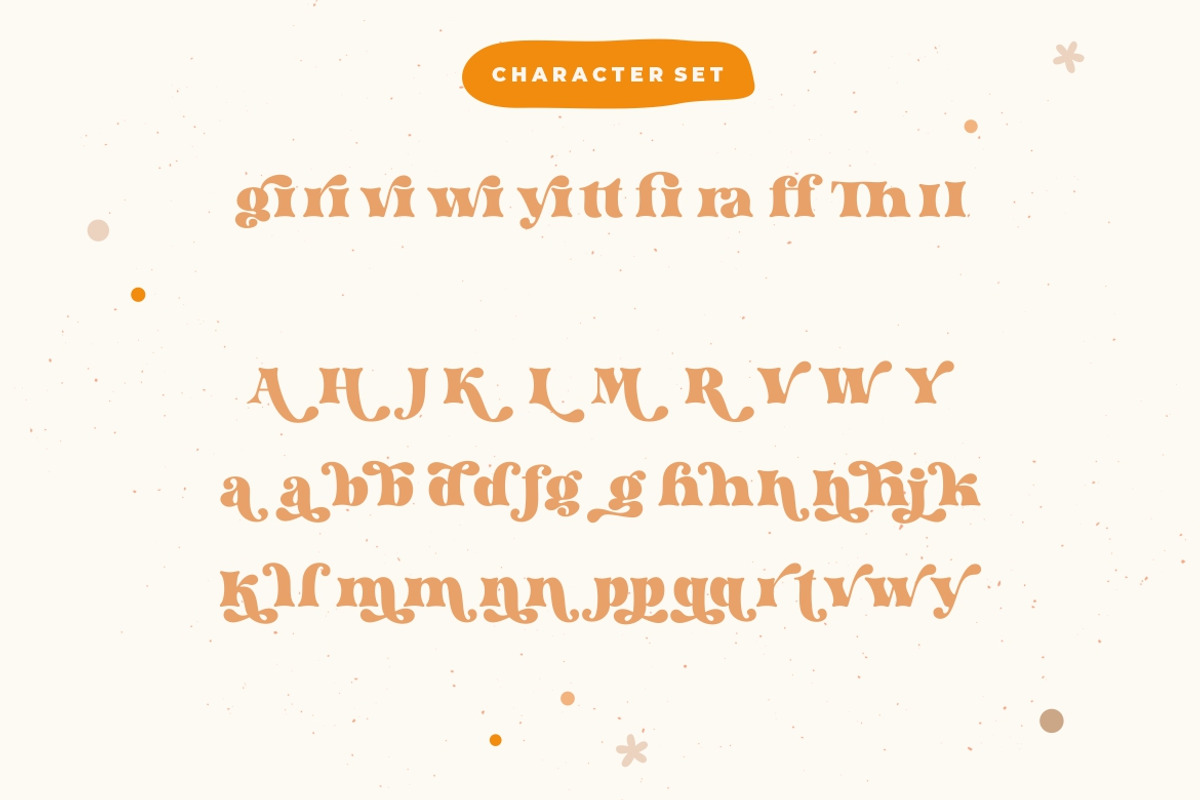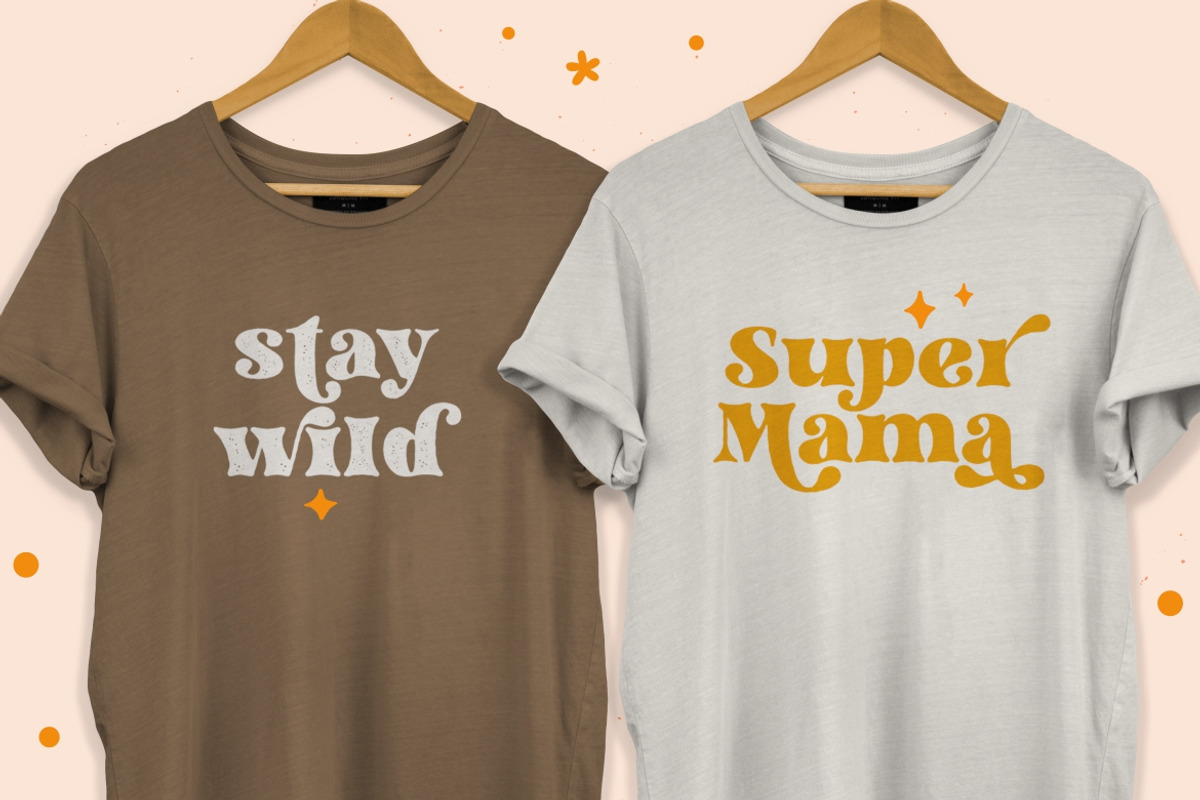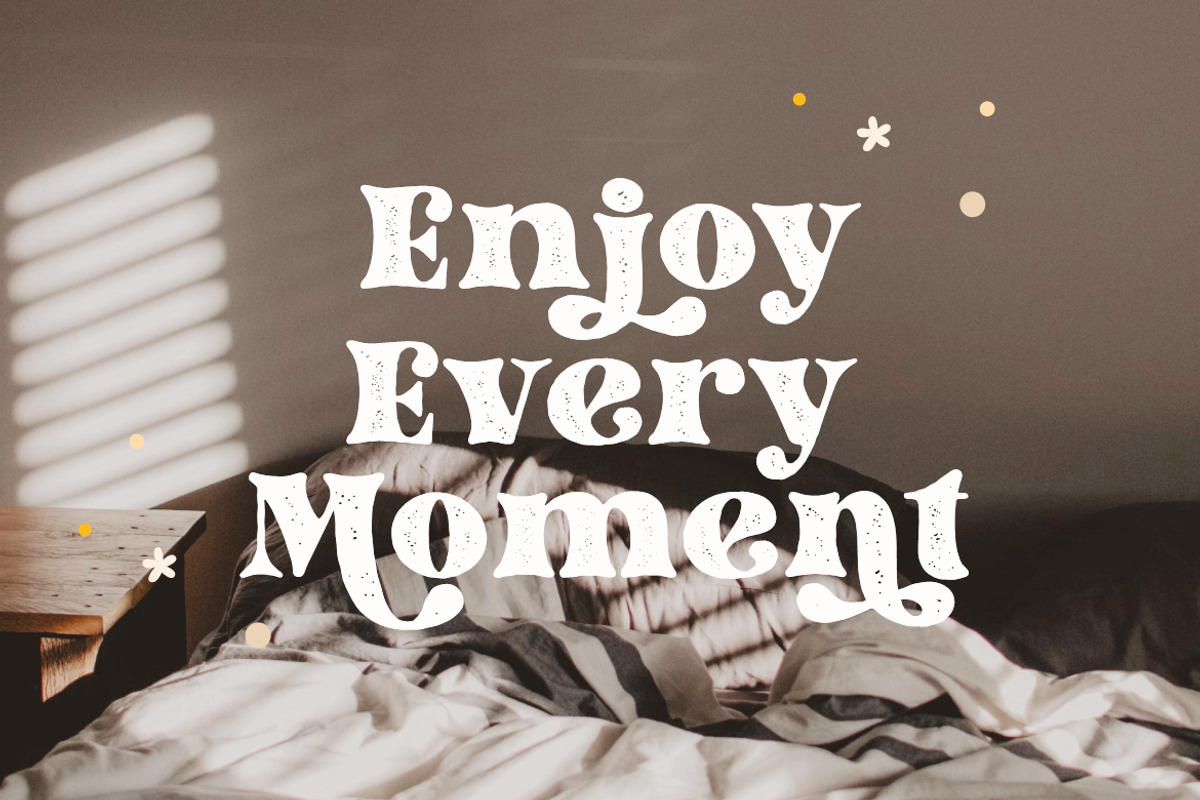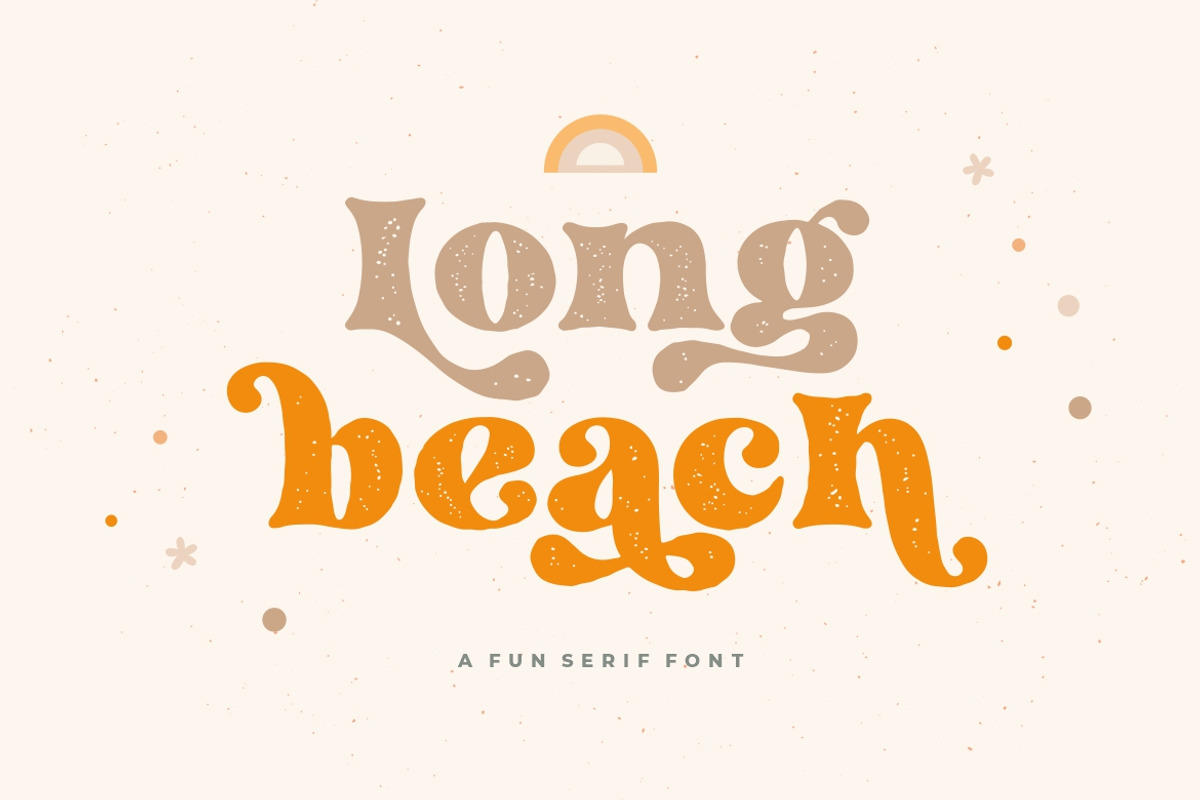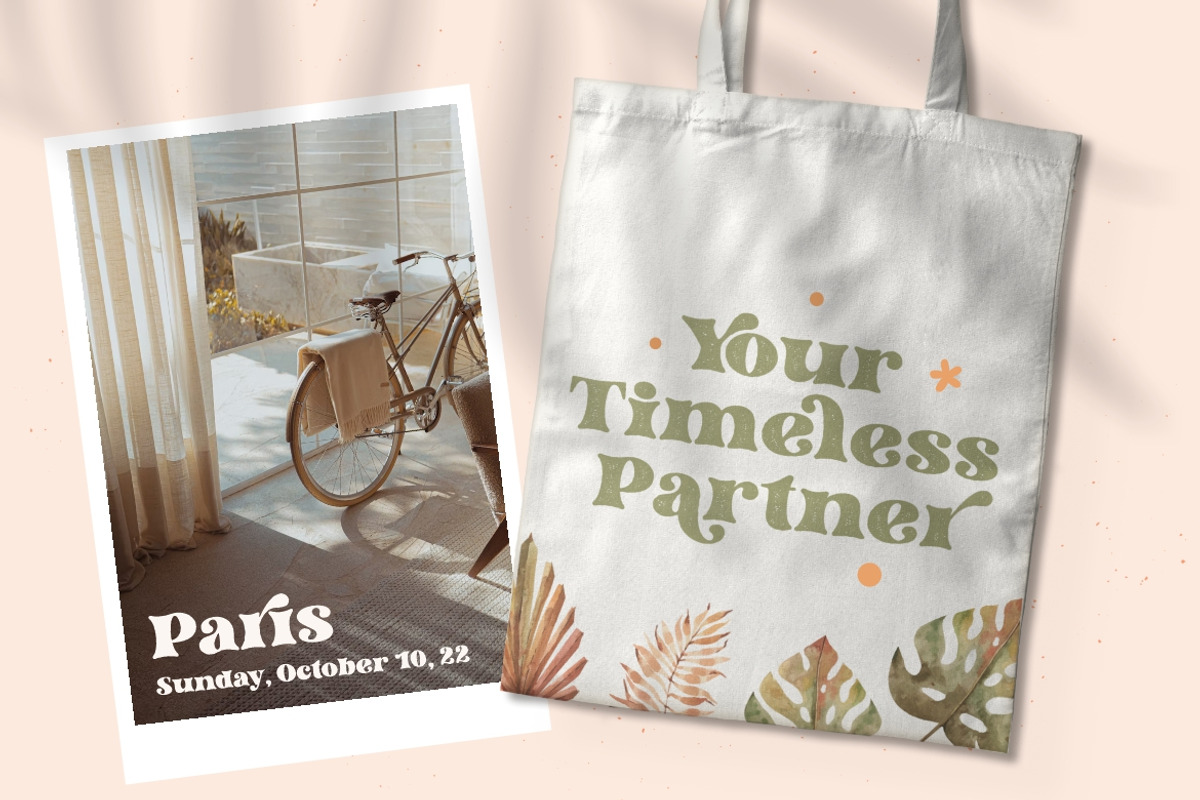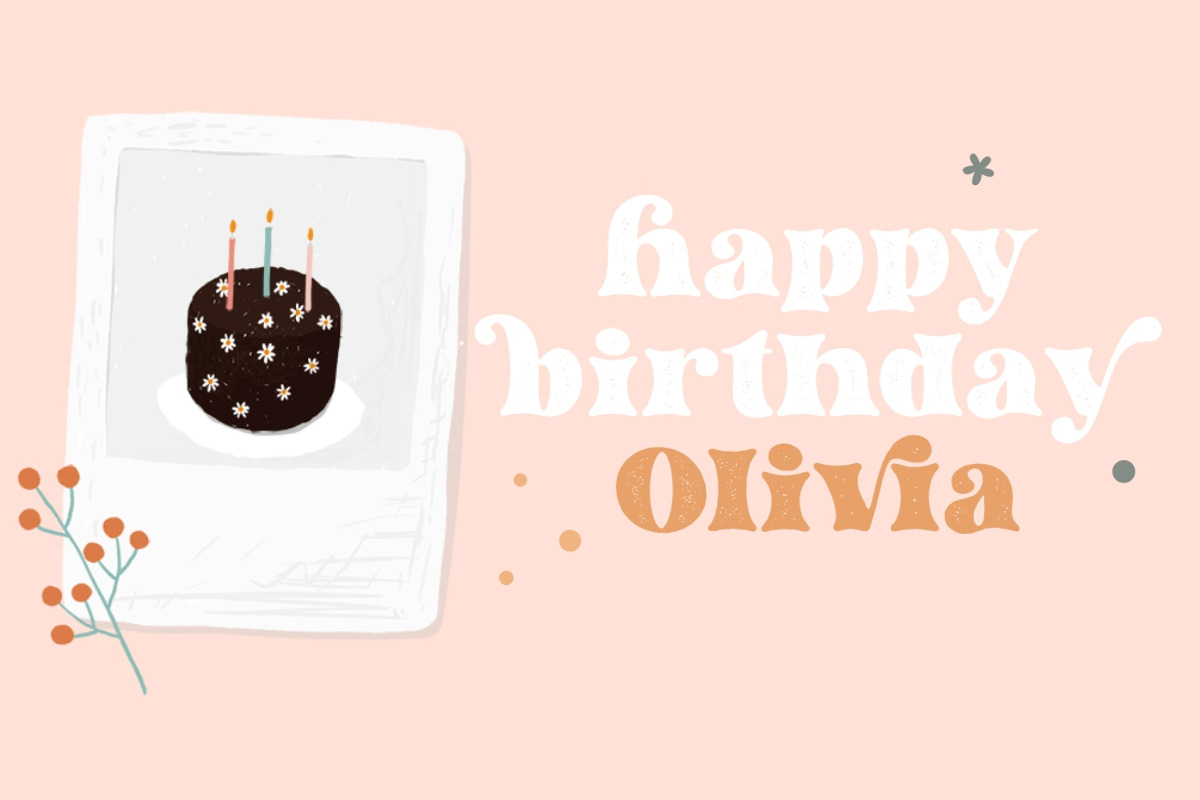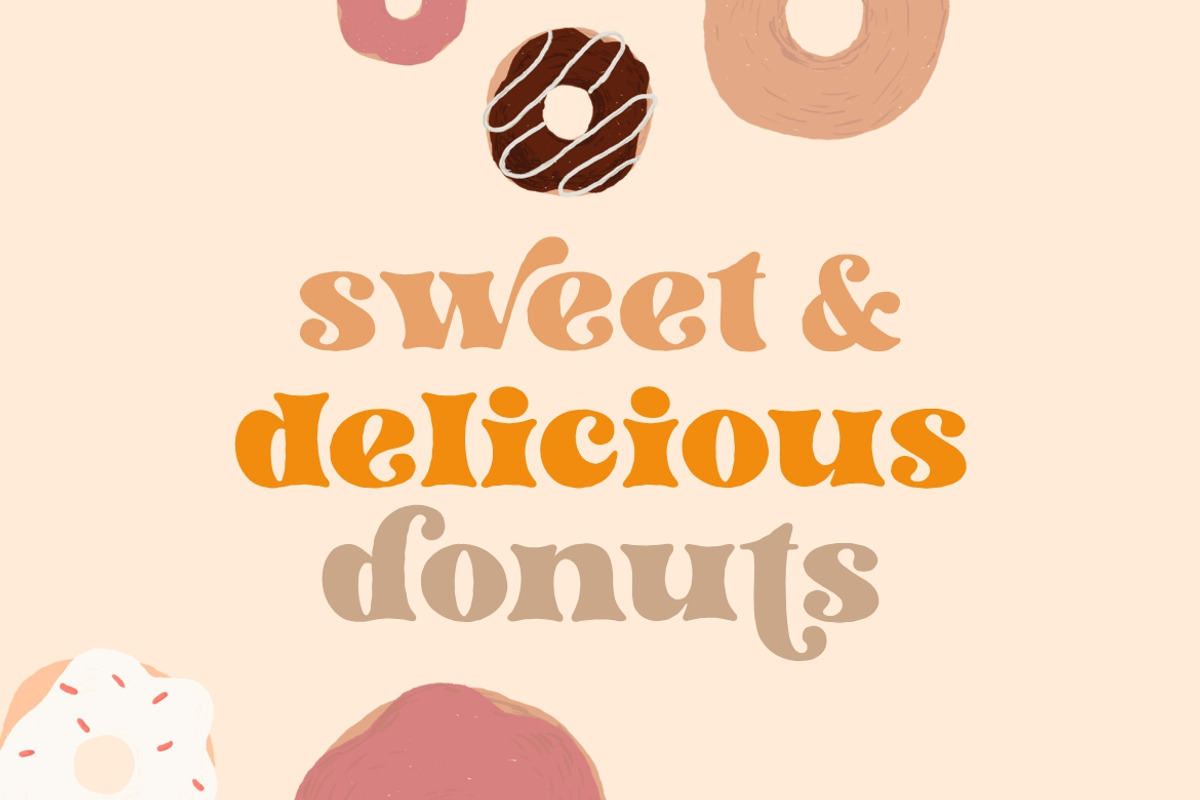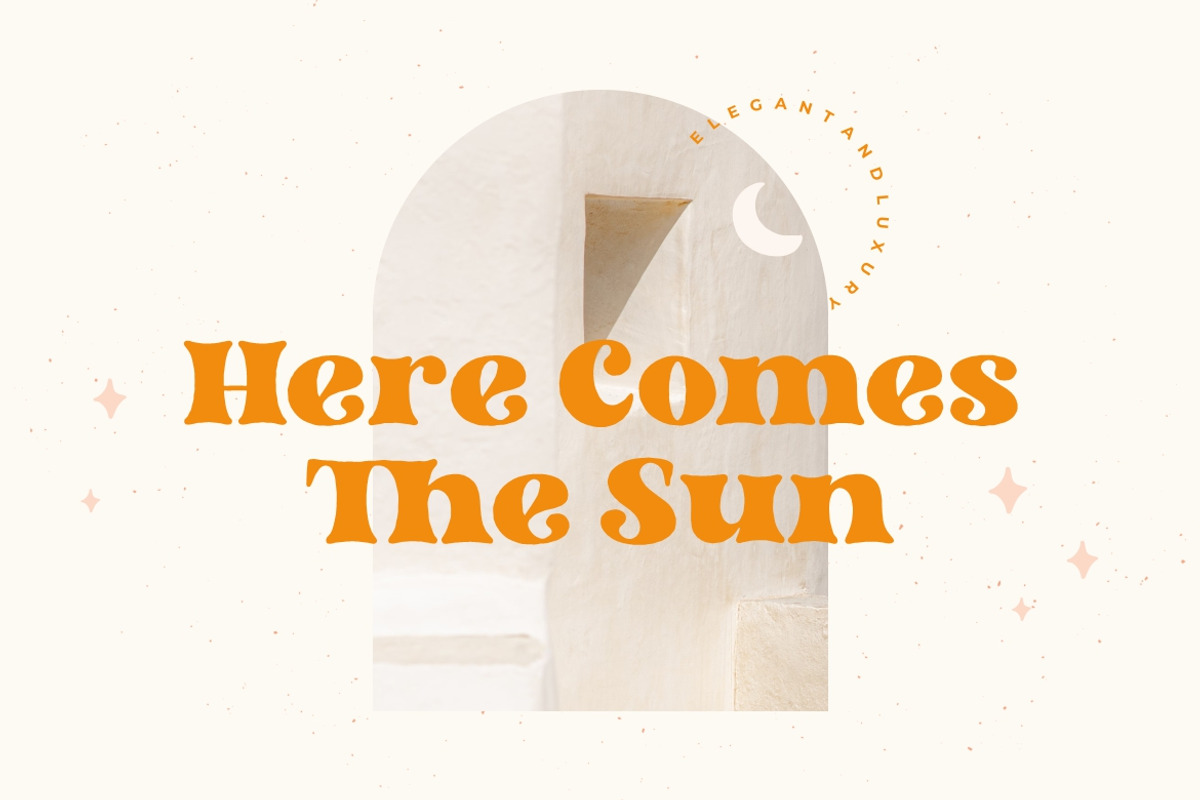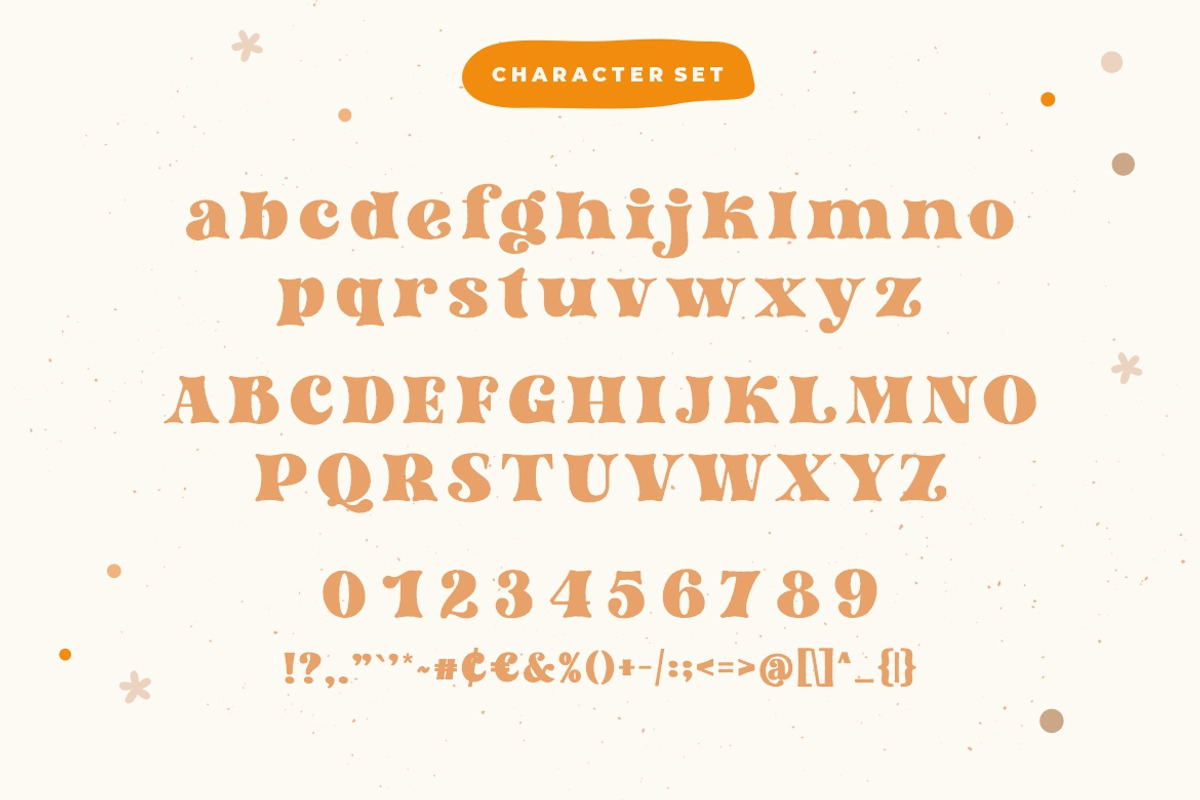
Long Beach - Fun Retro Serif Font
Long beach font is a retro serif and bold display font. You will get two types of fonts in this pack, clean version and textured version. Use this display font to add that special retro touch to any design idea you can think of!. Masterfully designed to become a true favorite, this font has the potential to bring each of your creative ideas to the highest level!
Very suitable for logotype, Stickers, Packaging design, Cricut Project, headlines, brand identity, t shirt or apparel industry, posters, magazines, books, YouTube, Instagram, websites, or any of your creative design projects.